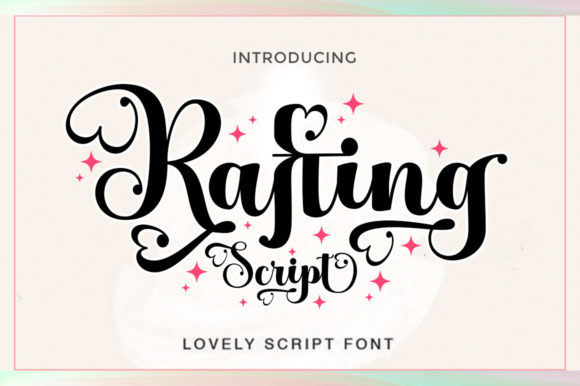
Introducing Rafting Script Font, the ultimate choice for those seeking the perfect blend of romance, elegance, and readability in their typography. Created by the brilliant minds at LetterFreshStudio, this script font is a true masterpiece that will captivate your imagination and elevate your design projects to new heights.
With its round lettered and distinct style, Rafting Script Font boasts a timeless charm that effortlessly enhances any creative endeavor. Whether you're designing book covers, wedding invitations, or branding materials, this font family is guaranteed to leave a lasting impression.
One of the standout features of Rafting Script Font is its exceptional versatility. It seamlessly adapts to any design concept, effortlessly breathing life into your words. Its beautiful and balanced characters effortlessly flow across the page, creating an enchanting visual experience for readers.
But what truly sets Rafting Script Font apart is its functionality. PUA encoded, this font offers you unlimited access to a wide range of glyphs and swashes, allowing you to unleash your creativity and personalize your designs like never before. From elegant flourishes to intricate details, the possibilities are endless.
Imagine the delight of your readers as they immerse themselves in the pages of a book, guided by the graceful curves and smooth strokes of Rafting Script Font. It effortlessly evokes a sense of warmth and intimacy, making it the best font for reading books and creating an unforgettable reading experience.
Embrace the power of Rafting Script Font and let it be your secret weapon in captivating audiences, conveying emotions, and leaving an indelible mark on their hearts. Don't settle for ordinary fonts when you can have extraordinary. Elevate your designs and unlock a world of endless possibilities with Rafting Script Font.